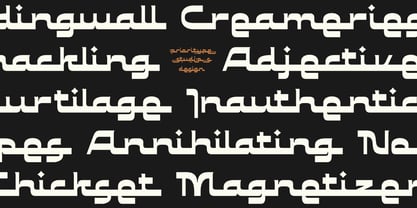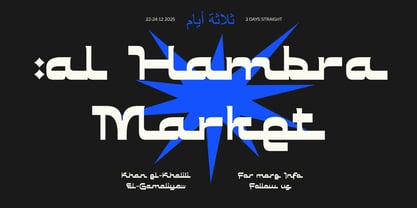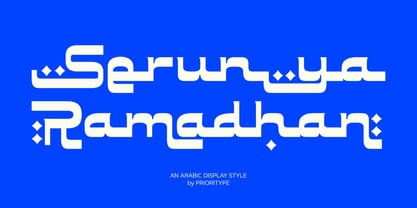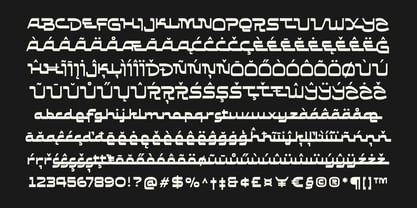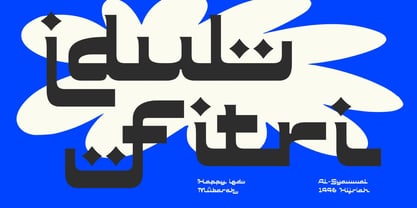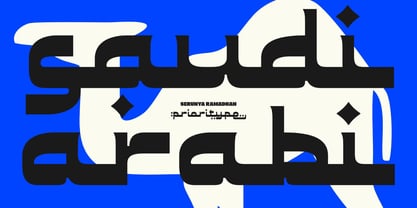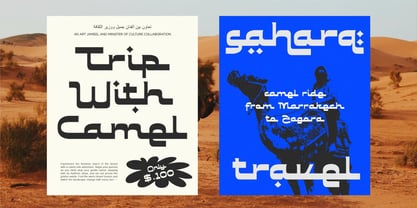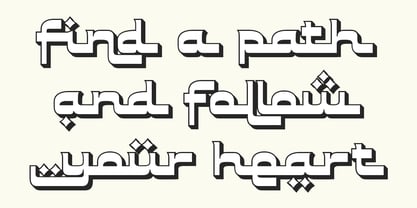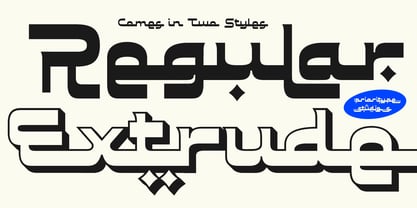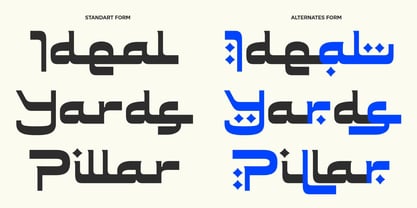
Serunya Ramadhan
Die Schriftfamilie Serunya Ramadhan wurde von Prio Nurokhim Aji entworfen und von Prioritype veröffentlicht. Serunya Ramadhan enthält 2 Stile und Familienpaketoptionen. Mehr über diese Familie
Serunya Ramadhan is a bold Latin display font with an Arabic-inspired style that feels strong, modern, and unique. Built with solid letterforms and a distinctive visual character, this font remains highly readable while still offering a decorative edge. Packed with plenty of alternate characters, stylistic sets, and shape variations, Serunya Ramadhan provides extensive flexibility for creative exploration. Perfect for headlines, logos, posters, packaging, and any design project that aims to stand out with a bold and distinctive look. Thank you for choosing Prioritype Co.